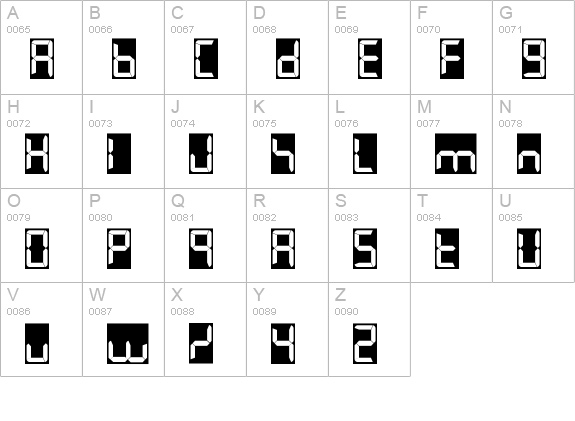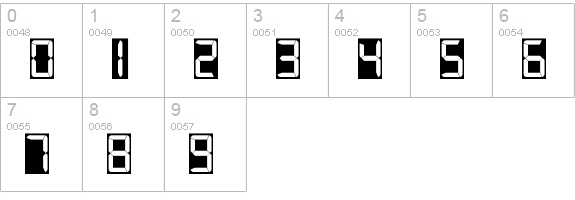
7LED Font Details
The 7LED font is a visually striking typeface that is sure to catch the eye and leave a lasting impression. With its bold and futuristic design, this font is perfect for any project that needs a modern and innovative touch. The sharp edges and clean lines of the characters give it a sleek and sophisticated look, making it ideal for use in digital displays, logos, posters, and more. What sets the 7LED font apart is not just its stunning aesthetics, but also the fact that it is available for free. That's right, you can easily download this font without any cost or hassle. Simply head over to FontsMarket.com and you will find the 7LED font waiting for you, ready to be added to your design arsenal. Whether you are a professional designer, a student working on a project, or someone who simply enjoys experimenting with typography, the 7LED font is a must-have. Its versatility and captivating style make it suitable for a wide range of purposes, from creating eye-catching headlines to designing sleek and modern website headers. With the 7LED font, the possibilities are endless. Let your creativity soar as you explore the various ways this font can enhance your designs. Whether you want to add a futuristic touch to your branding materials or create captivating digital signage, the 7LED font will help you achieve your vision effortlessly. Download the 7LED font for free at FontsMarket.com today and elevate your designs to a whole new level of sophistication and style. Don't miss out on this incredible opportunity to add a touch of modernity and innovation to your projects. Get your hands on the 7LED font now and see the difference it can make.